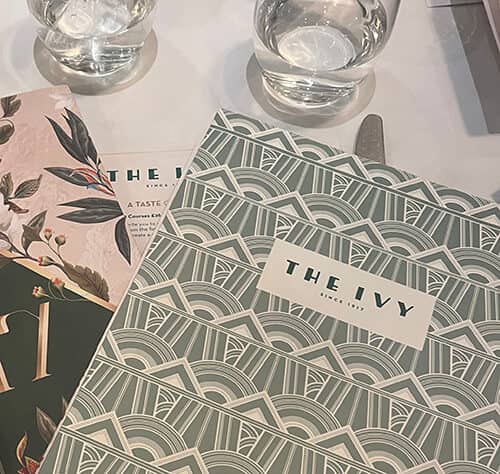
Yesterday I was honoured to be invited to the House of Lords by Small Business Britain (more about them later) for a networking reception. Afterwards, I grabbed lunch at The IVY with a couple of business friends. I mentioned I still hadn't nailed down this month's newsletter font. Then it hit me – the restaurant menu was 1920s-inspired and suddenly I was transported back to evenings watching Hercule Poirot on TV. Perfect. Let's have a look at the font I found…
Taking a screen grab and loading the image into WhatTheFont has saved me many minutes of guessing. It pulled up several options, including this beauty: Artisual Deco.
Designed by Måns Grebäck, it's very similar to what The Ivy uses and screams 1920s. I reckon it's best used for headlines, logos, and posters - anywhere you want that Art Deco glamour. And here's the menu from The Ivy that sparked it all.